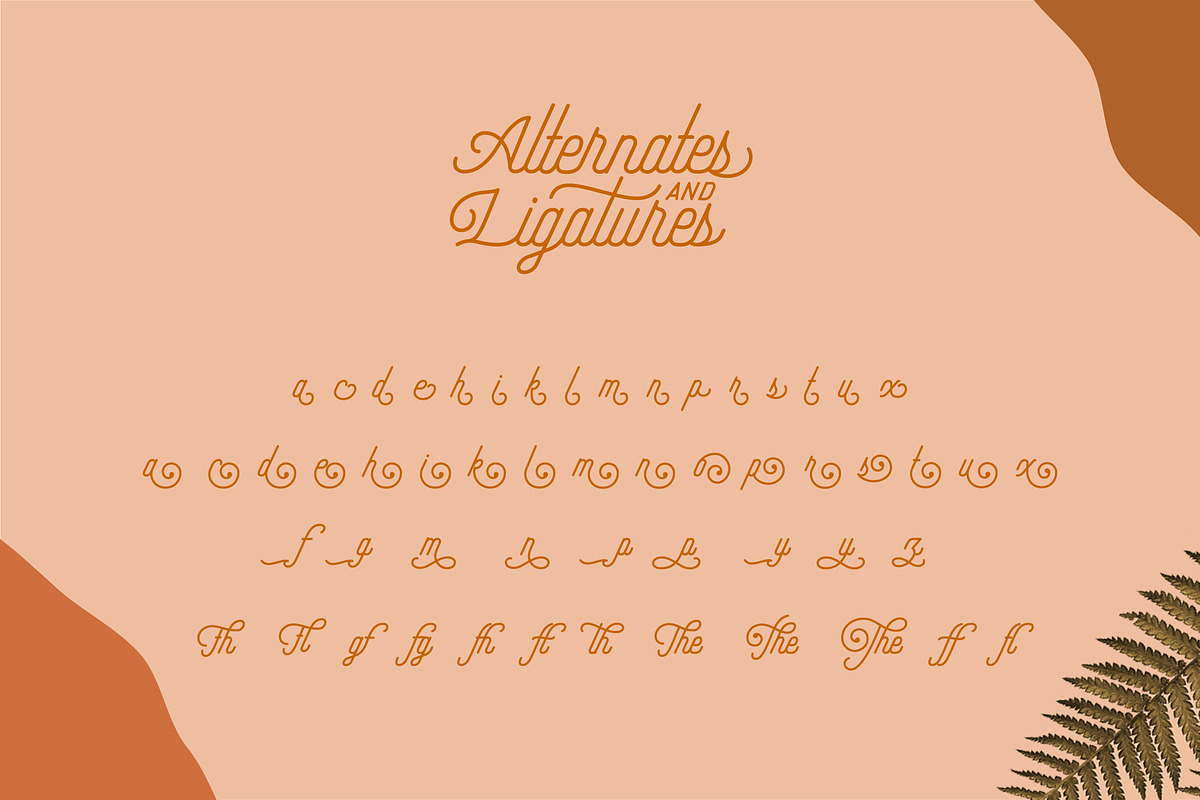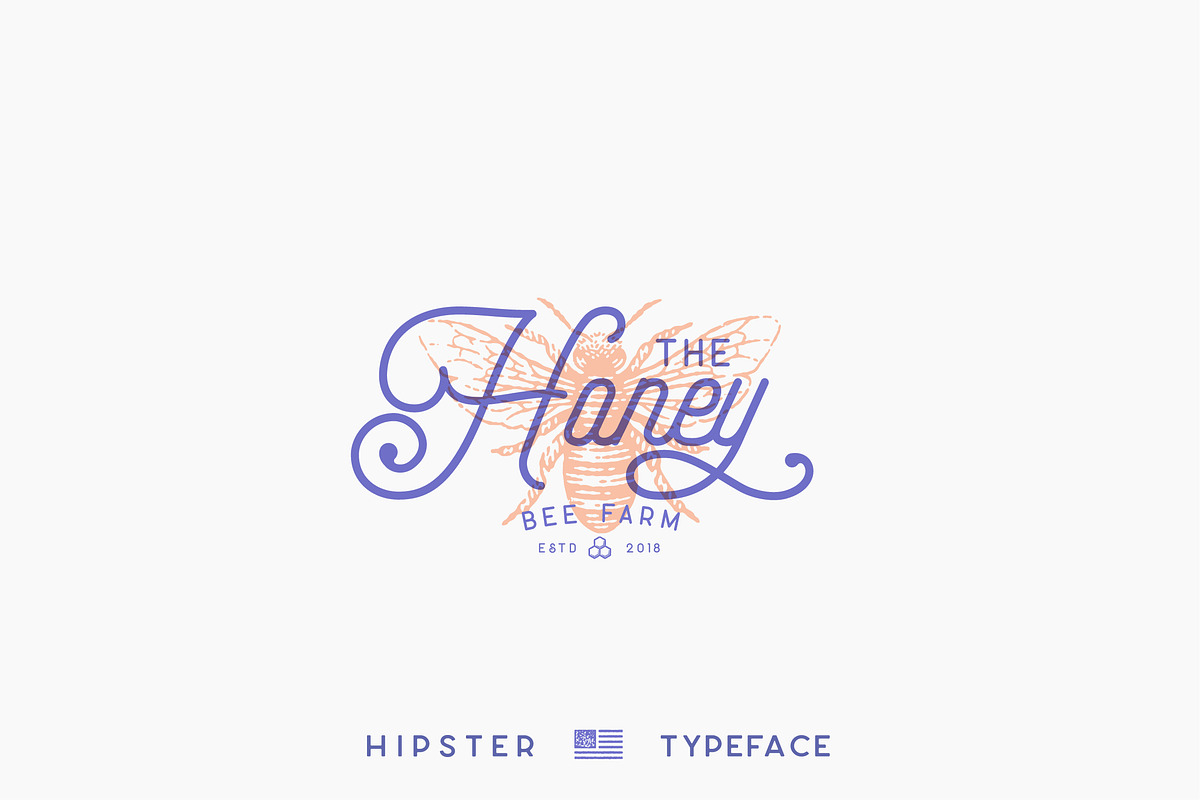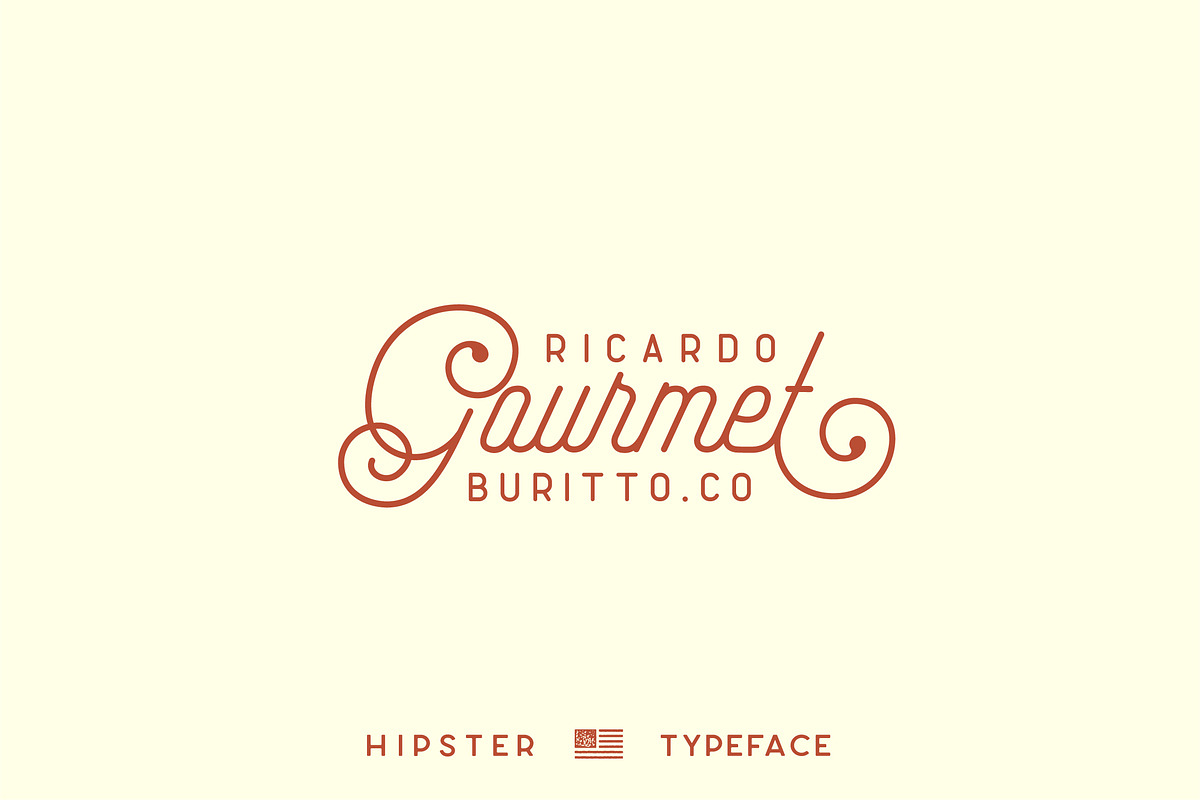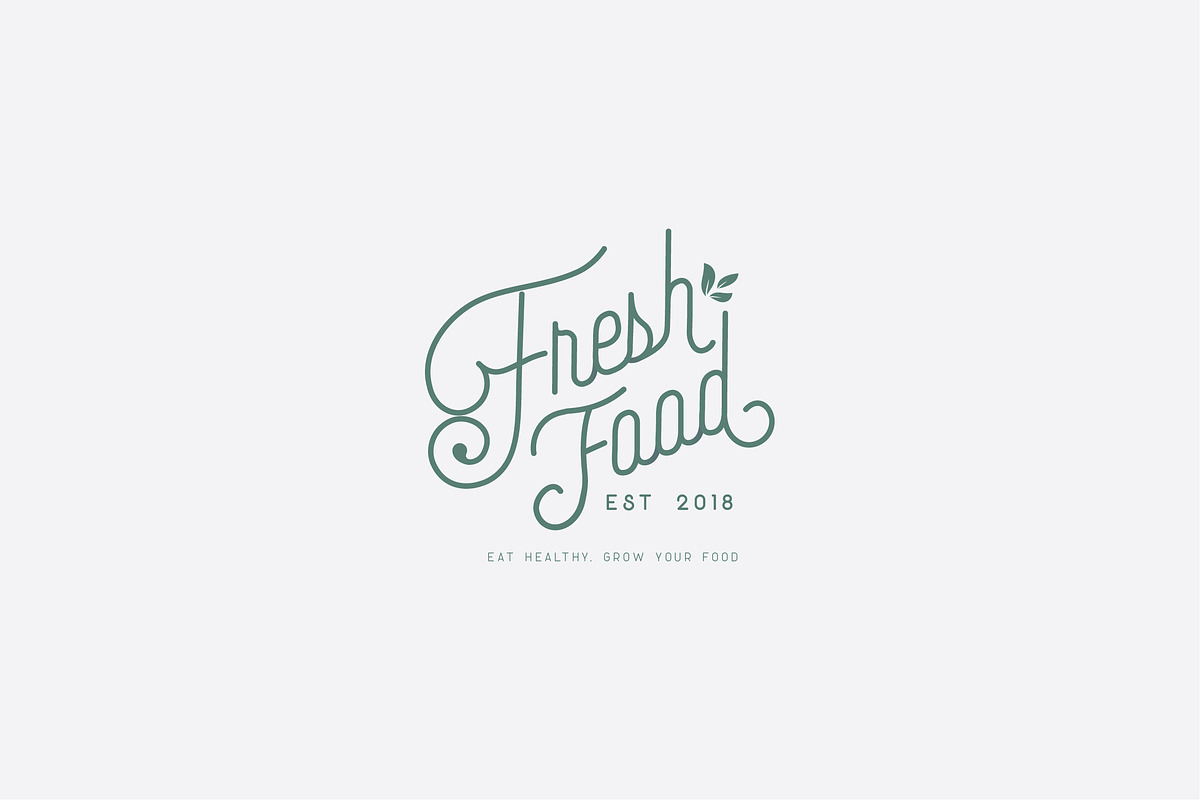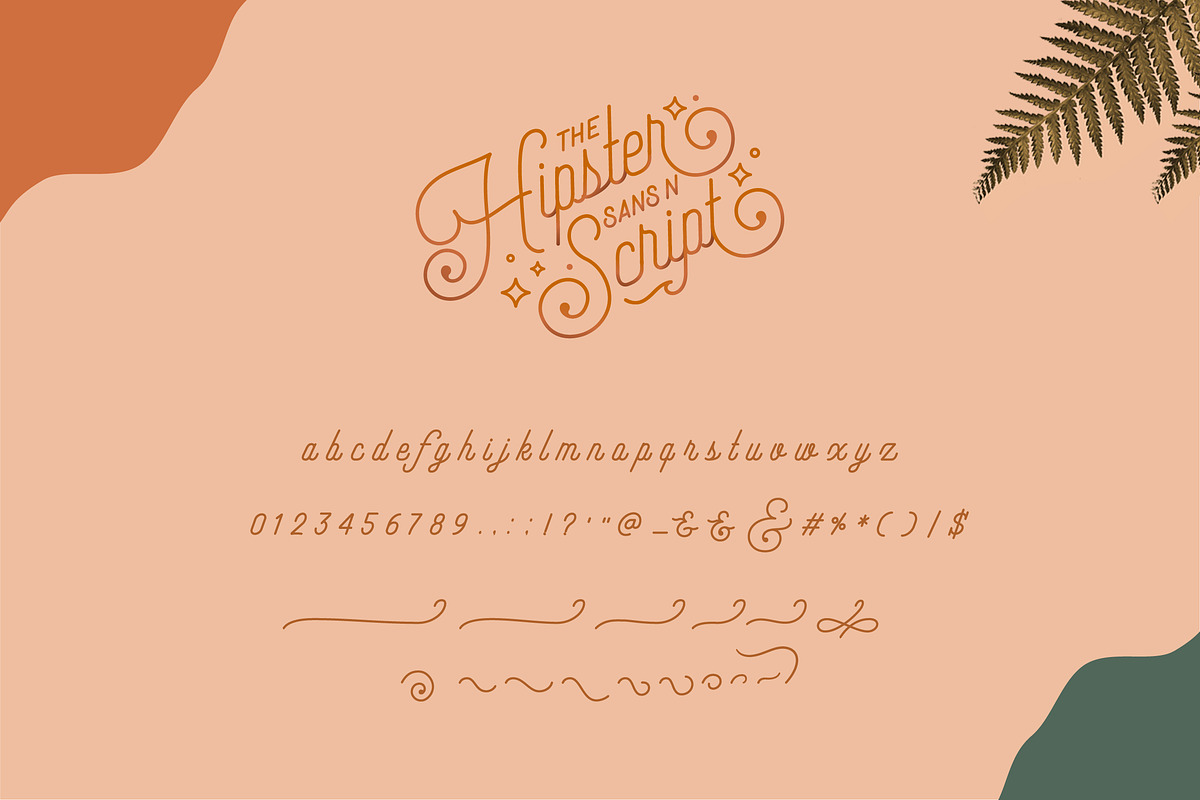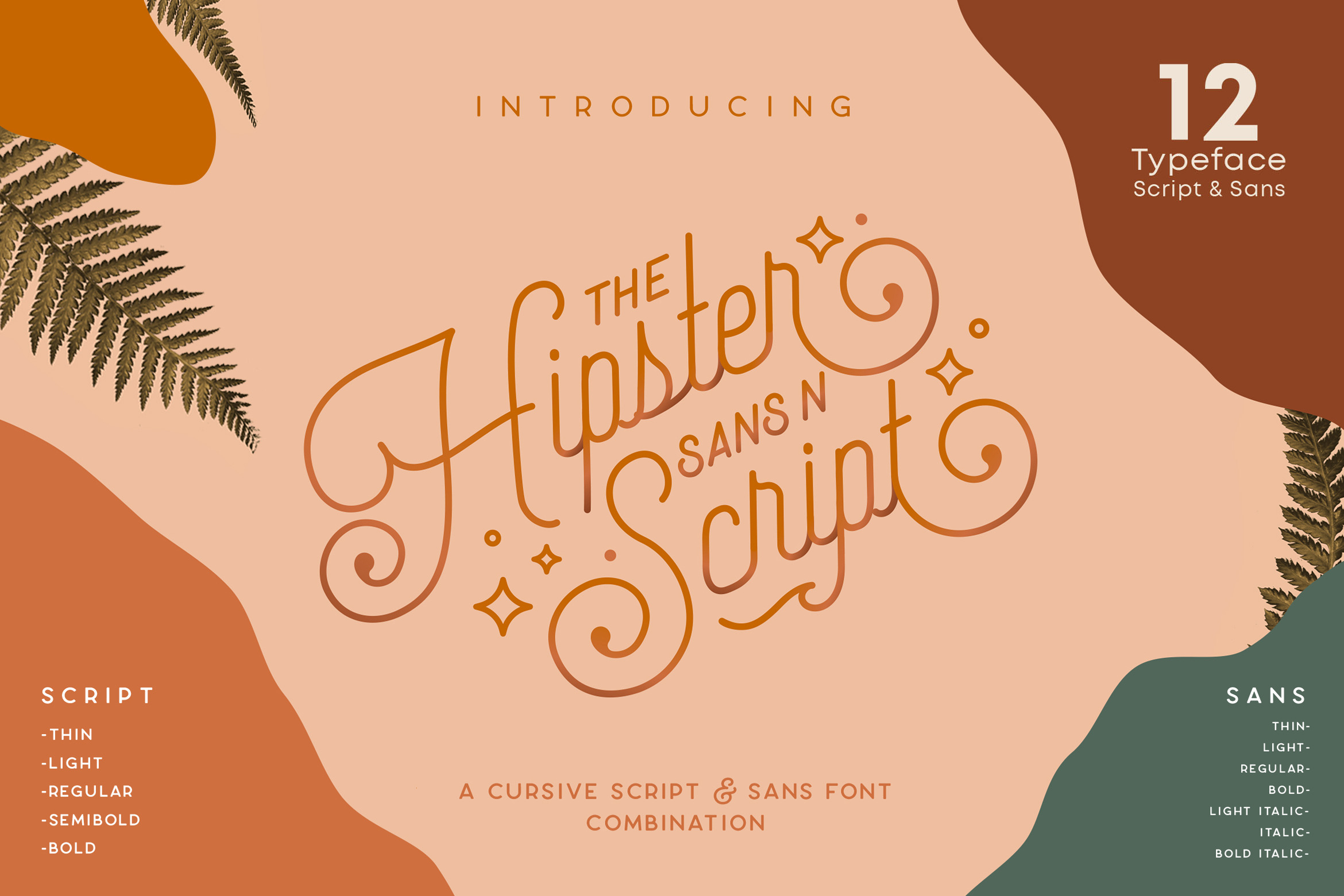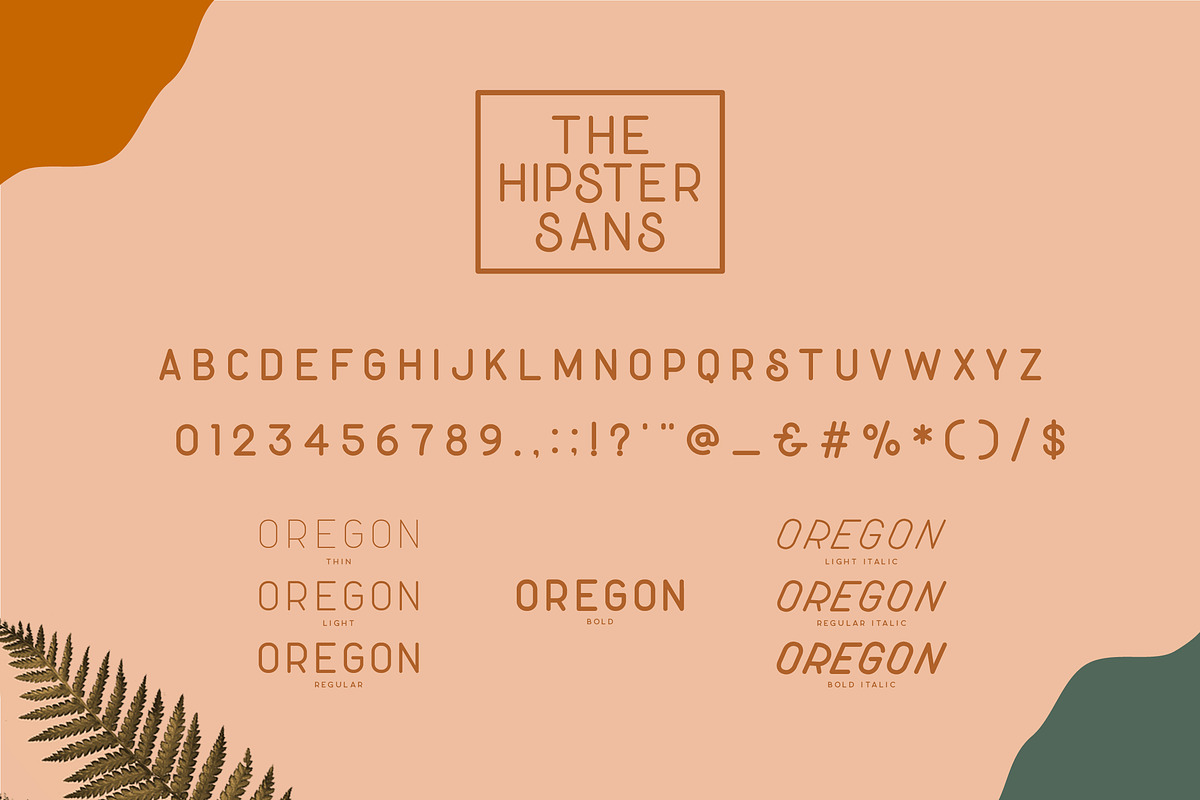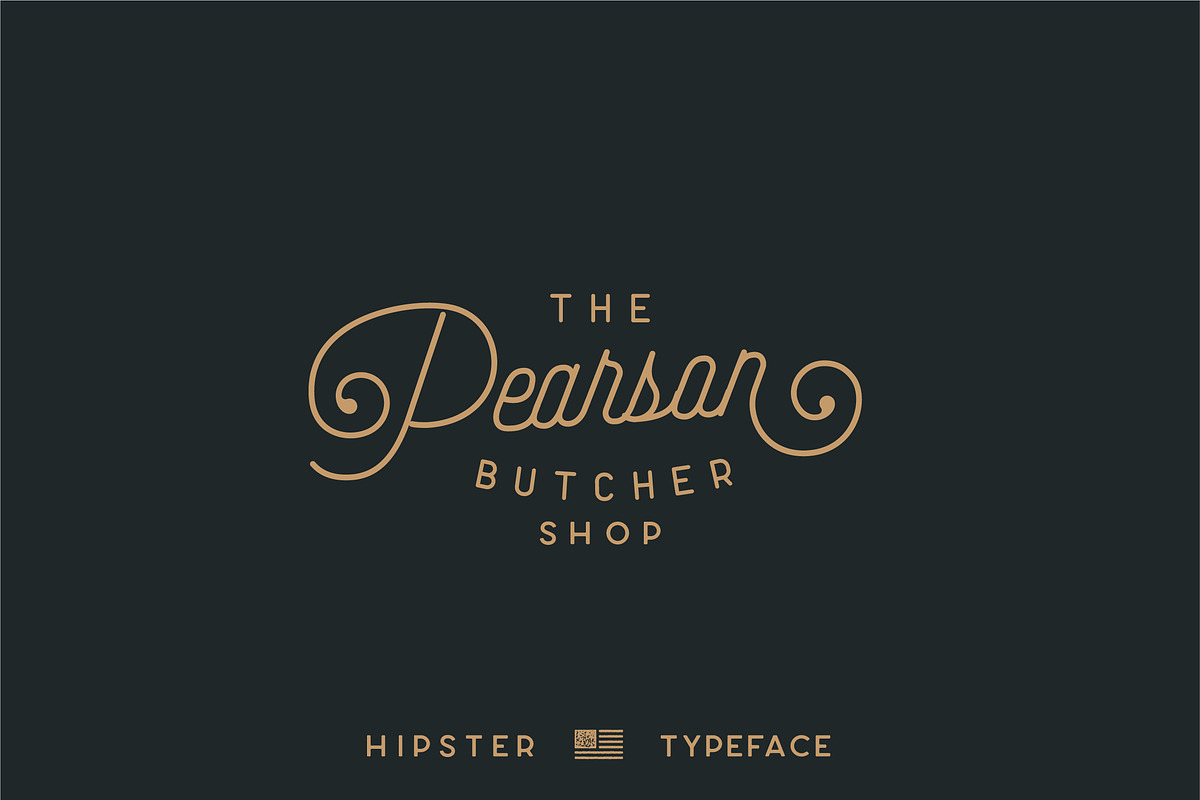
Hipster Style - Stylish Font Duo
Hipster Script and Sans is an elegant vintage handcrafted font duo with a ton of beautiful alternates. Its a hand-made monoline script and pair sans serif, inspired from vintage and retro culture with modern touch. Perfect for branding projects, Logo design, Clothing Branding, product packaging, magazine headers, or simply as a stylish text overlay to any background image.
Get 5 Hipster Script Styles + 7 Simple Sans serif A perfect typeface pair with for you to try.
Font Duo, Hipster Script and Sans Serif
Stylistic Alternates, Ligatures & & swashes
I loved the previews of this font, but they don't all connect properly. I have to do a lot of kerning in between letters at various amounts to make it work properly.
These fonts do not come with ligatures, as is promoted. Fonts are great, but not accurately described.